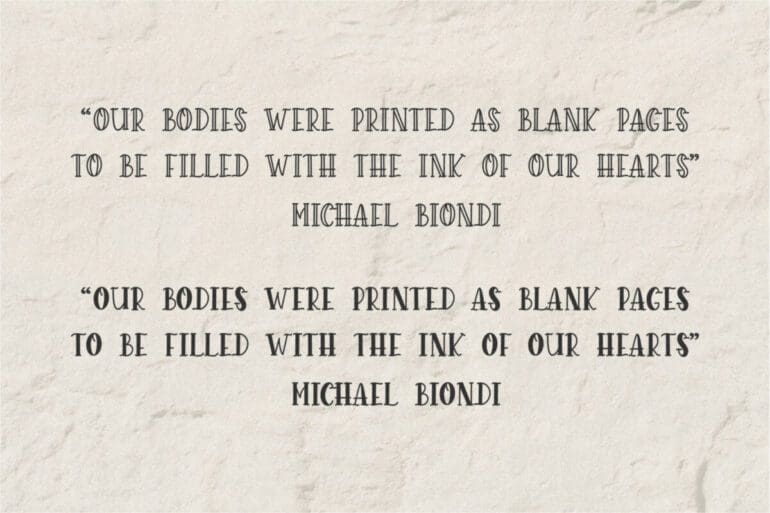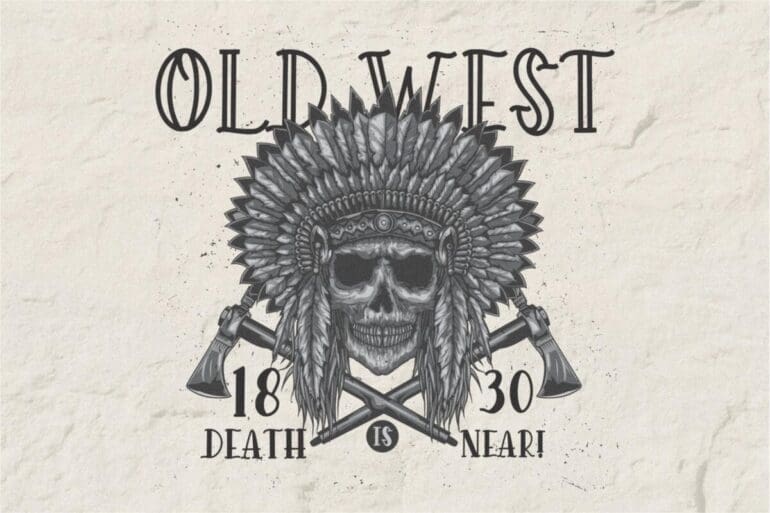
Melodical Font
Melodical is a whimsical and uniquely designed display font. It will elevate a wide range of crafting ideas, from cards, to branding, labels and much more. Add it confidently to your favorite creations and let yourself be amazed by the outcome generated.